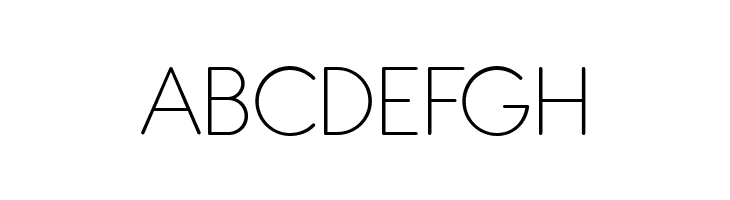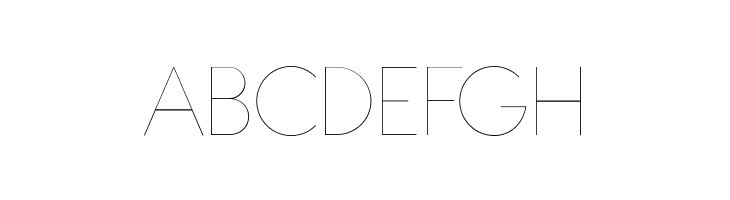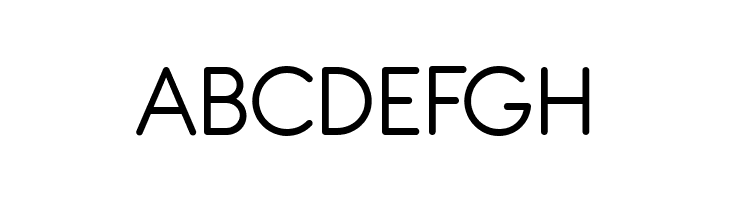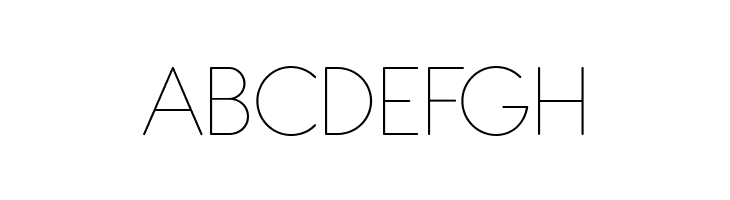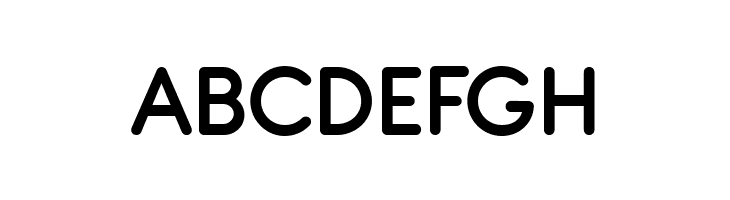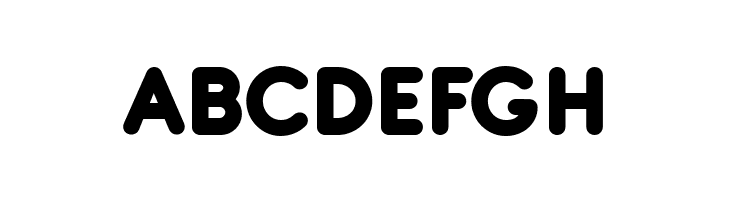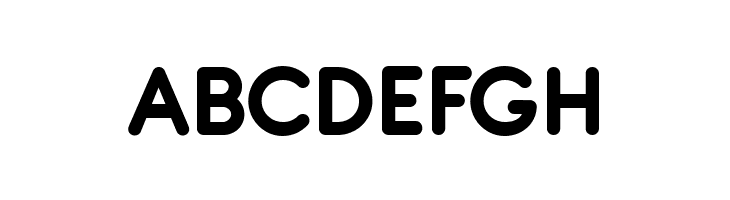
An ornate and elegant font with decorative swirls and flourishes.
An ornate serif font with a shadow effect, offering a classic and elegant style.
A bold, angular font with dynamic strokes and modern elegance.
An artistic, hand-drawn font with angular, whimsical characters.
A modern, handwritten font with a casual and dynamic style.
A bold, angular serif font with a modern, edgy design.
A modern sans-serif font with rounded edges and uniform strokes.
A bold, rounded font with a playful and friendly appearance.
A modern, geometric font with thin strokes and balanced spacing.
A modern, rounded sans-serif font with a clean and approachable style.
A modern, geometric font with smooth, rounded edges and balanced spacing.
A bold, rounded sans-serif font with smooth curves and a modern look.
A modern, rounded sans-serif font with a friendly and approachable style.
A bold, rounded typeface with smooth curves and uniform strokes.
A bold, rounded font with smooth curves and a modern, friendly style.
A clean, modern font with uniform strokes and minimalist design.
An ultra-thin, geometric font with a modern and minimalist design.
A clean, modern font with smooth, rounded edges and uniform stroke width.
A modern, rounded font with uniform stroke width and clean lines.
A sleek, modern font with thin, geometric lines and excellent legibility.
A bold, brush-style font with dynamic, jagged strokes.
A cursive, handwritten font with elegant loops and a modern calligraphic style.
A bold, decorative font with a vintage, three-dimensional effect.
A dynamic, expressive handwritten font with fluid strokes.
A decorative and whimsical font with intricate curls and swirls.
A whimsical, hand-drawn style with a vintage flair.
A vintage-inspired font with elegant, narrow characters and unique flourishes.
A bold, flowing script font with elegant, interconnected characters.
A vintage, ornate script font with elegant loops and flourishes.
A decorative, vintage-style font with intricate loops and swirls.
A bold, expressive script font with a hand-drawn, lively aesthetic.
A bold, decorative font with a retro, vintage style featuring intricate cut-out patterns.
An elegant, decorative script font with flowing, ornate characters.
A bold, decorative font with whimsical curves and unique serifs.
A classic serif font with modern elegance and clear readability.